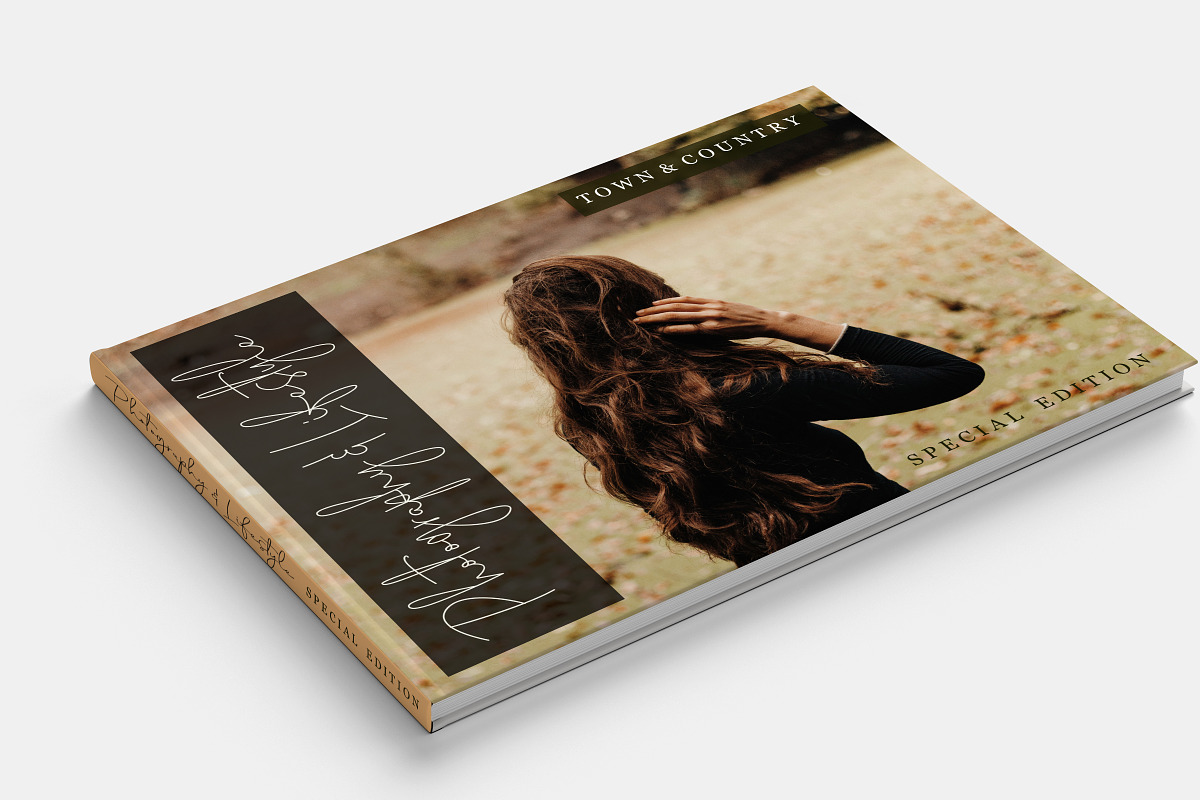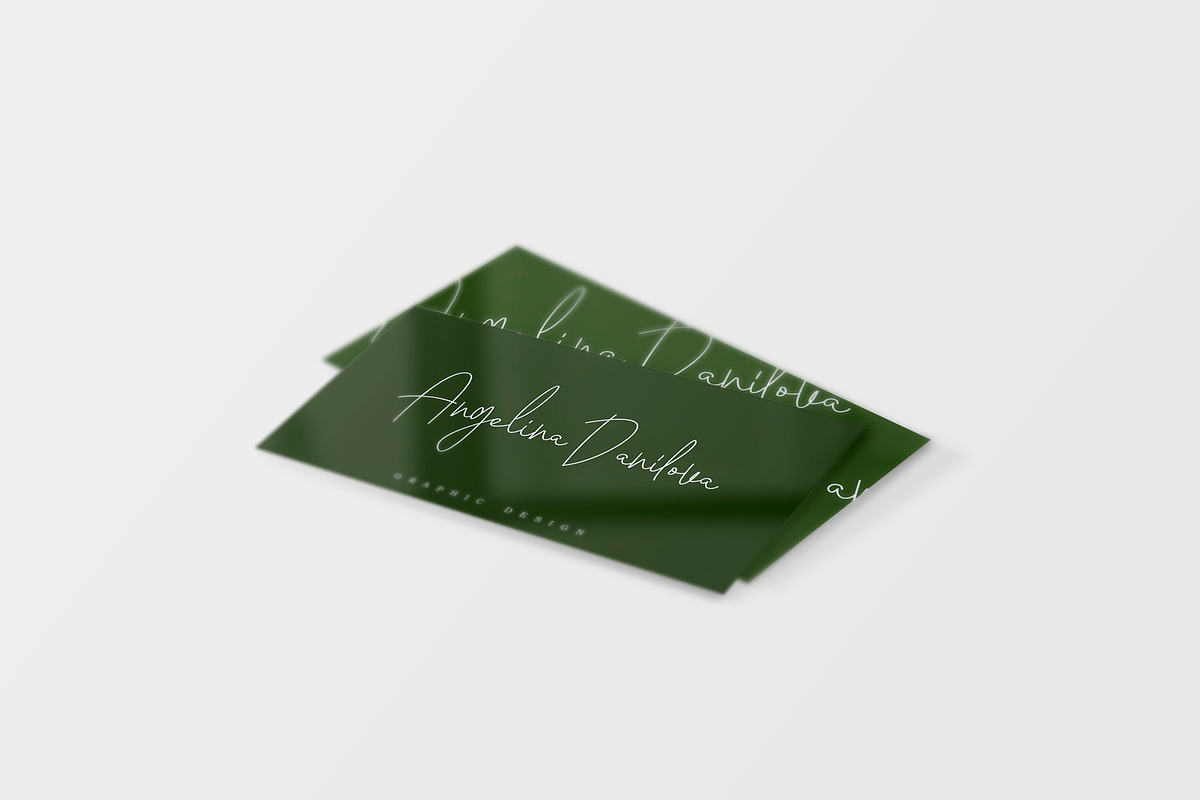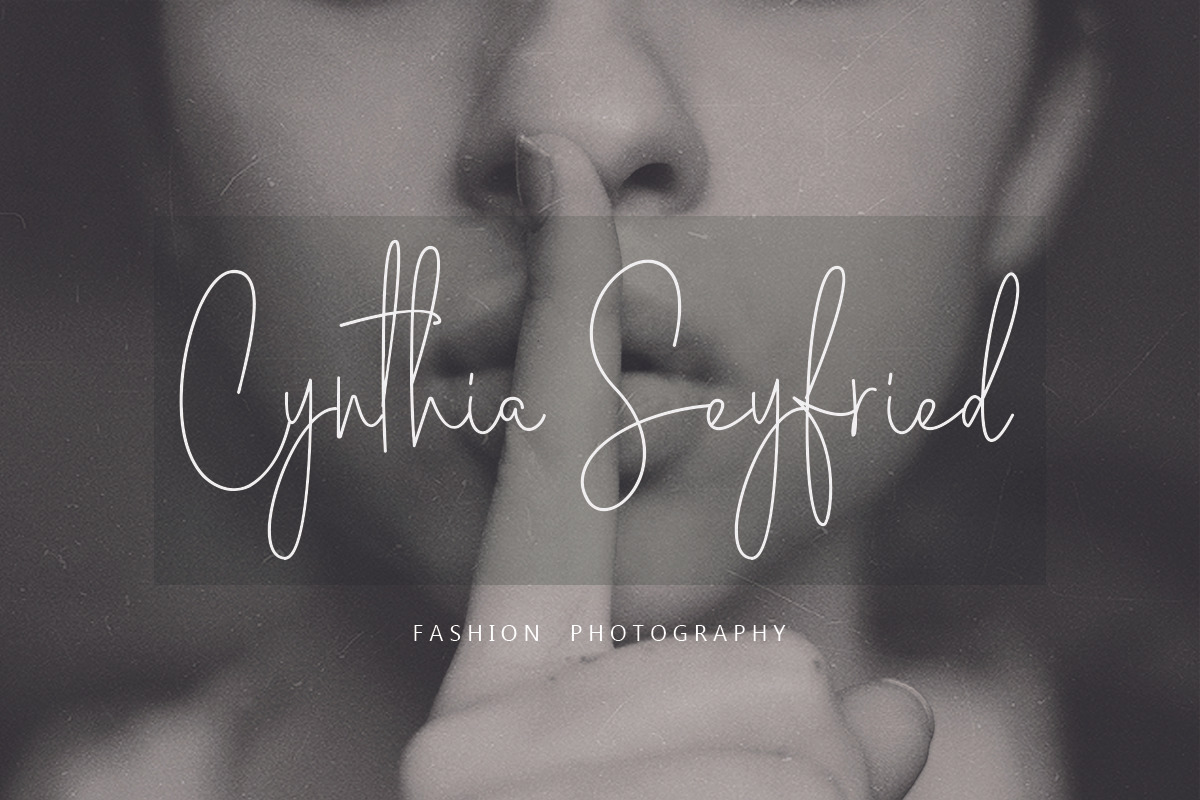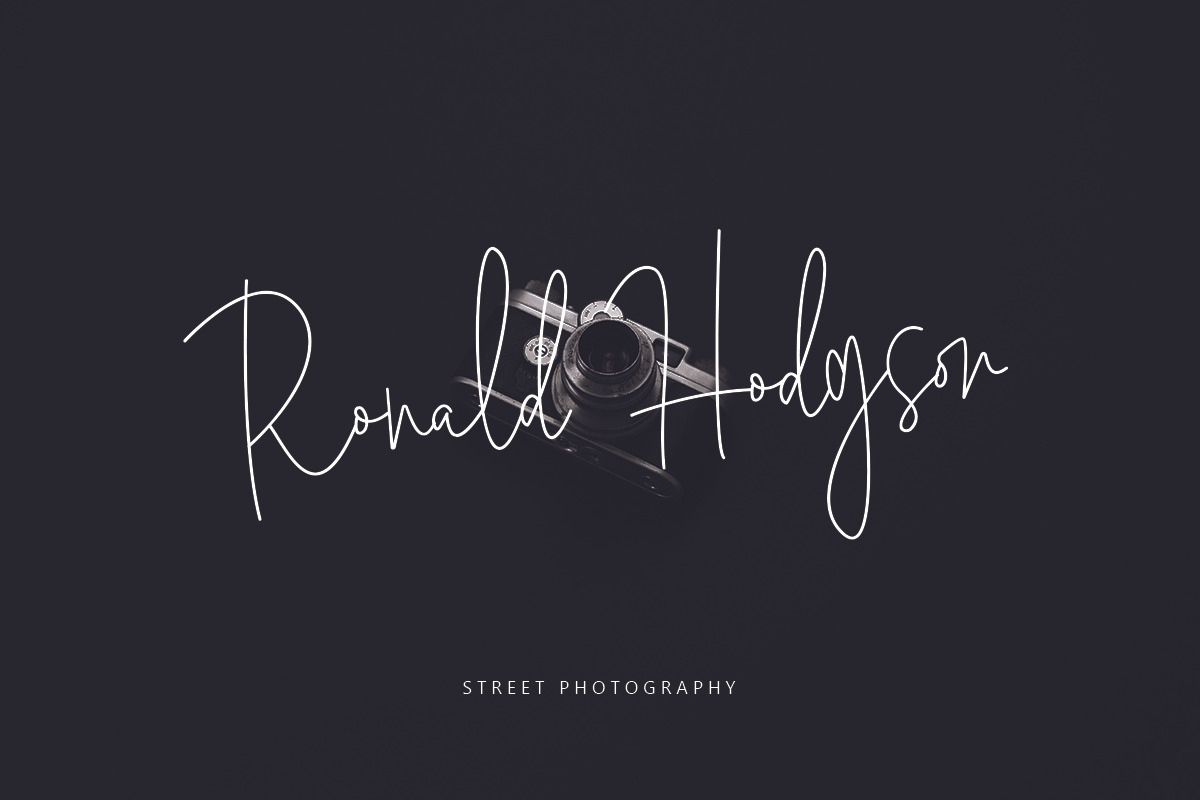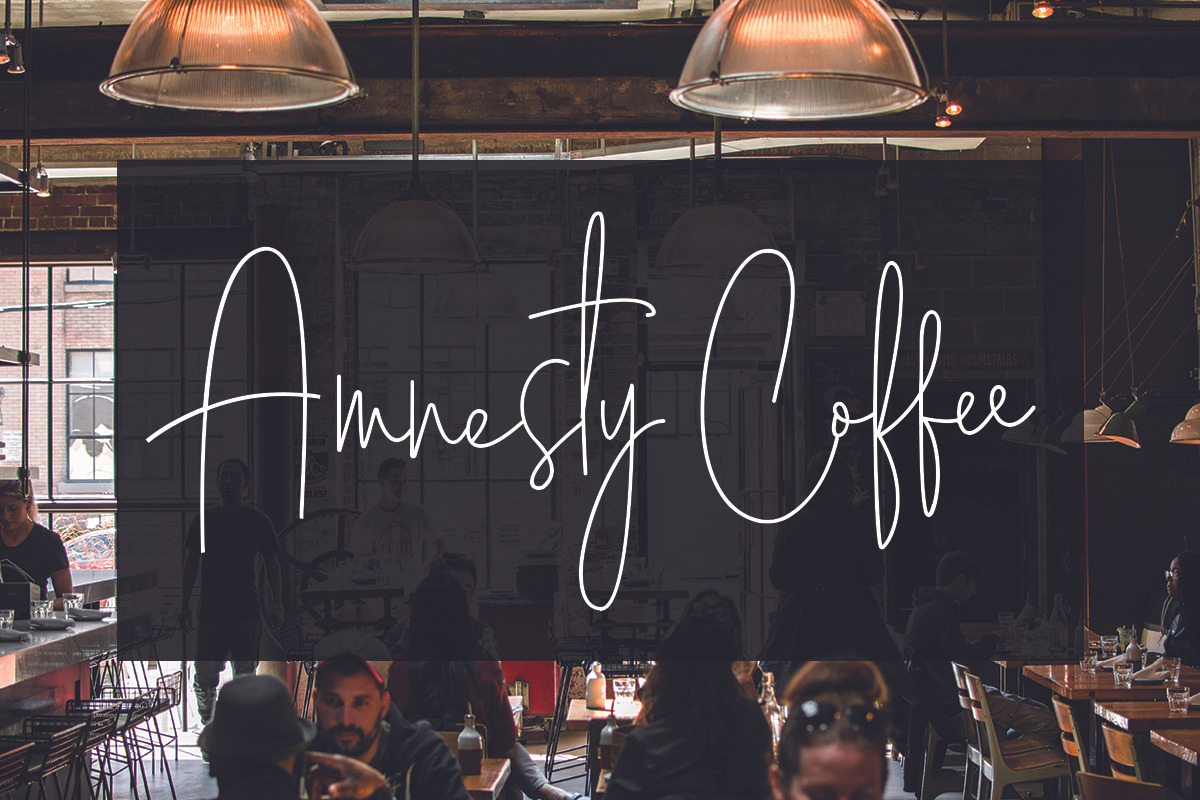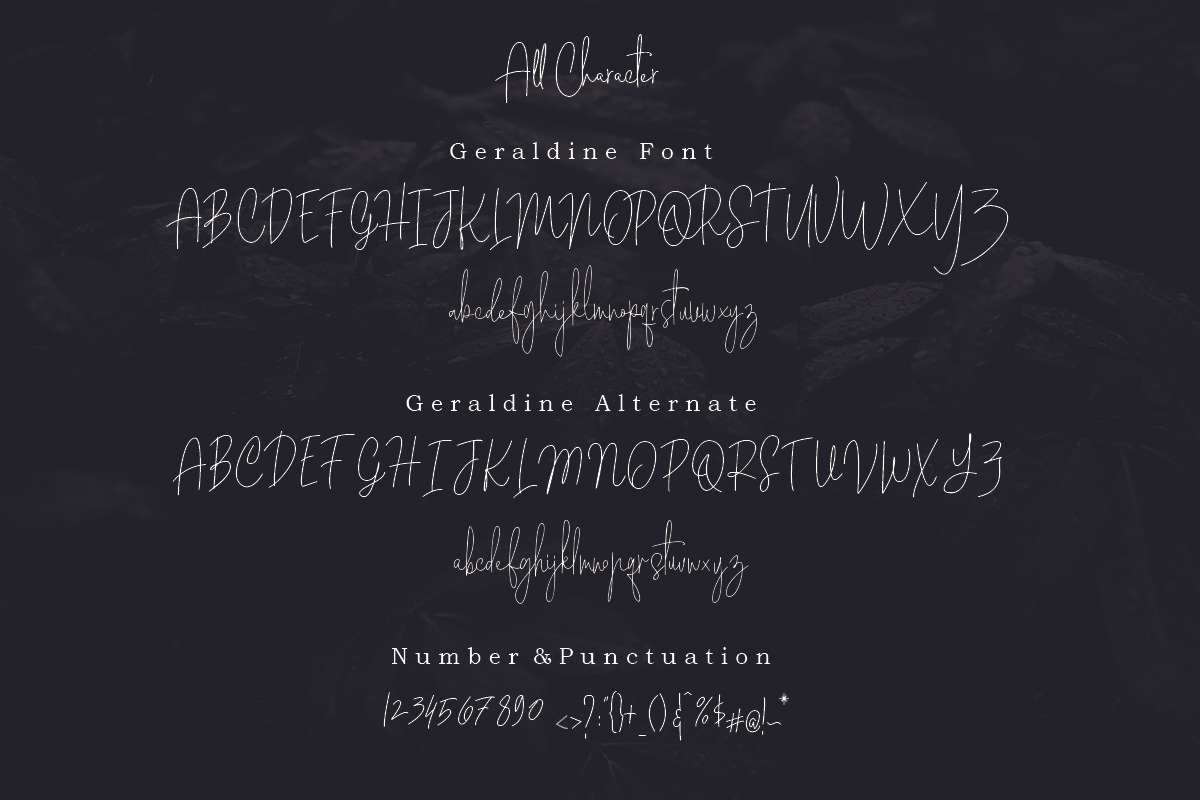
Geraldine | Handwritten Font
Geraldine Handwrriten is a font that is suitable for brand logos, each letter has been carefully crafted to make your text look beautiful. With the script style this modern font will be perfect for many different projects: watermarks, posters, weddings, branding, logos, fashion, clothes, letters, invitations, etc.
And in this Font there are 80+ Ligature that makes it easier for you to make the branding logo more beautifully
Here is the Geraldine font ligature :
aa ab aff aj alt al am an ar as ass at au ch ct dd ee et er ff gg gh he if il im in ip ir irr is itith ine ld lf ll od of off ol om on oo op or orr os ot oth out outh ov ow ows pp rr si sh sm so ss st su th ti tl tt tu ui um un ur urr us ut uth ux ya ye yi yo yu